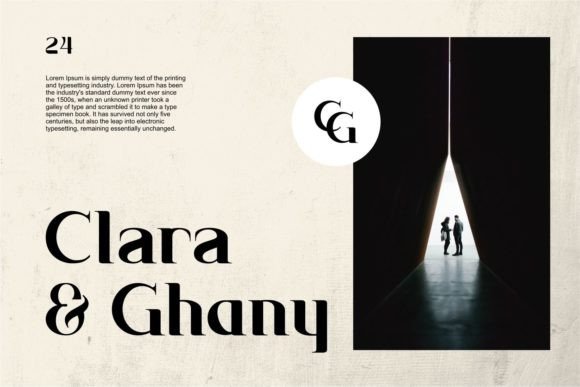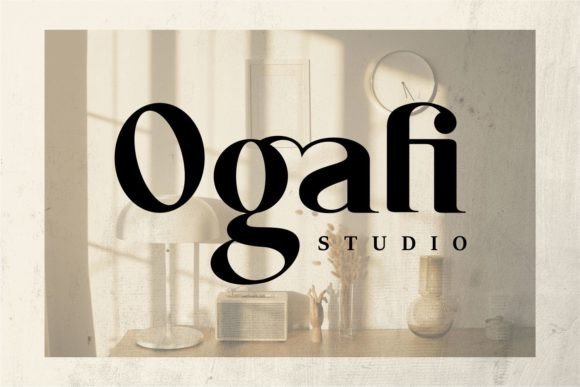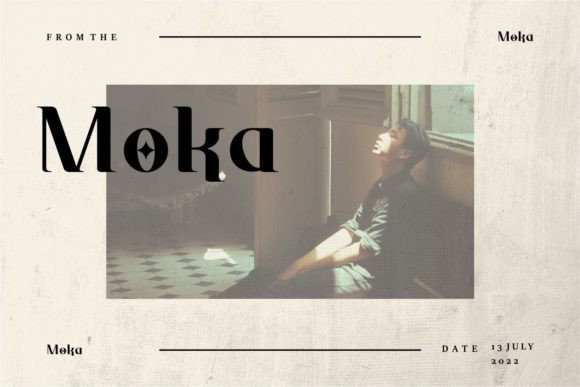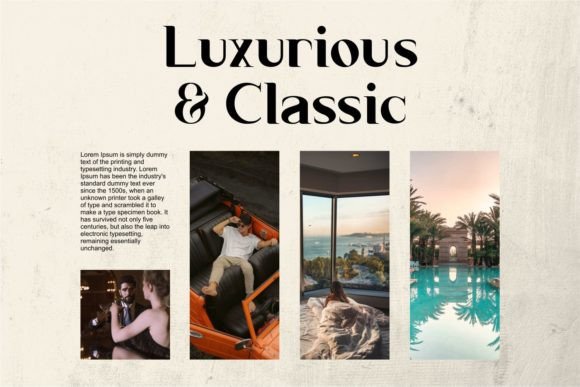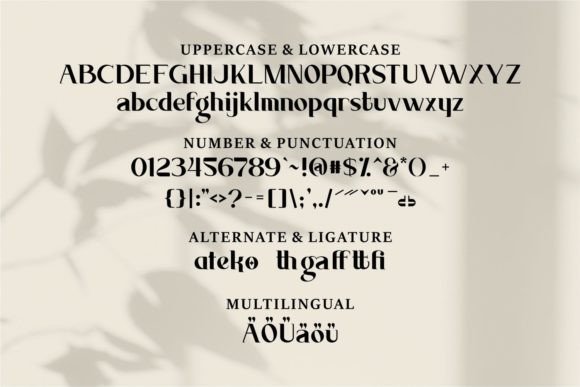
Introducing Anike Font: The Epitome of Elegance and Sophistication
In the realm of typography, few fonts manage to convey the essence of luxury, elegance, and femininity as effortlessly as Anike Font. This sophisticated, charming serif font has been specifically designed to cater to the needs of high-end, elegant, and feminine projects, making it the perfect choice for designers and crafters aiming to create modern, chic designs.
The Design Philosophy Behind Anike Font
Anike Font is more than just a typeface; it’s a design statement. Its creation was guided by the desire to produce a font that exudes a fashionable touch, making it ideal for projects that demand a high level of sophistication. The designers aimed to craft a font that not only pays homage to traditional serif typography but also infuses it with a contemporary flair, making it versatile enough for a wide range of applications.
Key Features of Anike Font
- Sophisticated Serif Design: Anike boasts a well-defined serif structure that adds a touch of elegance to any design.
- Fashionable Touch: Its unique design elements give it a modern and chic appearance, perfect for fashion-related projects.
- Elegant and Feminine: The font’s design is carefully crafted to convey a sense of femininity and grace, making it suitable for luxury brands and high-end products.
- Versatility: Anike can be used in a variety of contexts, from digital platforms to print materials, ensuring consistency across different mediums.
Applications of Anike Font
Given its elegant and sophisticated nature, Anike Font finds its application in various design projects, including but not limited to:
- Luxury Brand Logos: The font’s luxurious feel makes it a perfect match for high-end brand identities.
- Fashion Magazines and Editorials: Its chic and modern appearance is well-suited for the fashion industry’s editorial needs.
- Wedding and Event Invitations: Anike adds a touch of elegance and sophistication to any invitation, making it memorable.
- Packaging Design: For luxury products, Anike can be used to create stunning packaging that stands out on the shelves.
Why Choose Anike Font?
In a sea of typefaces, Anike stands out for several reasons:
- Unique Fashionable Elements: It offers a fresh take on traditional serif fonts, making designs stand out.
- High Readability: Despite its elegance, Anike maintains high readability, making it suitable for body text as well.
- Easy to Pair: Its versatile design allows it to be paired with a variety of fonts for contrasting headings or supporting text.
Anike Font is a masterpiece of modern typography, blending the classic elegance of serif fonts with a contemporary, fashionable edge. Whether you’re a designer looking to elevate your luxury brand, a craftsperson aiming to add a touch of sophistication to your products, or simply a typography enthusiast, Anike offers a world of creative possibilities. Its ability to convey elegance, charm, and a sense of high-end quality makes it an invaluable addition to any design project.
Embrace the sophistication and charm of Anike Font in your next design venture and experience the difference it can make in creating modern, chic, and memorable designs.